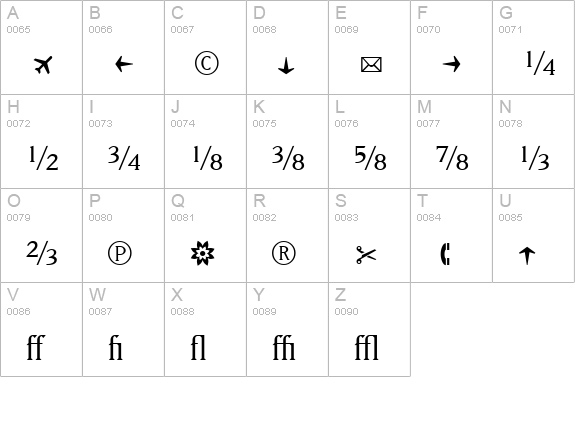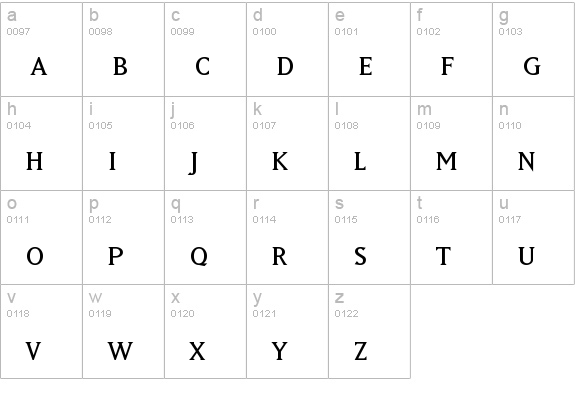
MatrixBookFractions Regular Font Details
MatrixBookFractions Regular is the standard, neutral variant in the MatrixBookFractions typeface family \xE2\x80\x94 well suited to general body text, paragraphs, and standard typographic work.